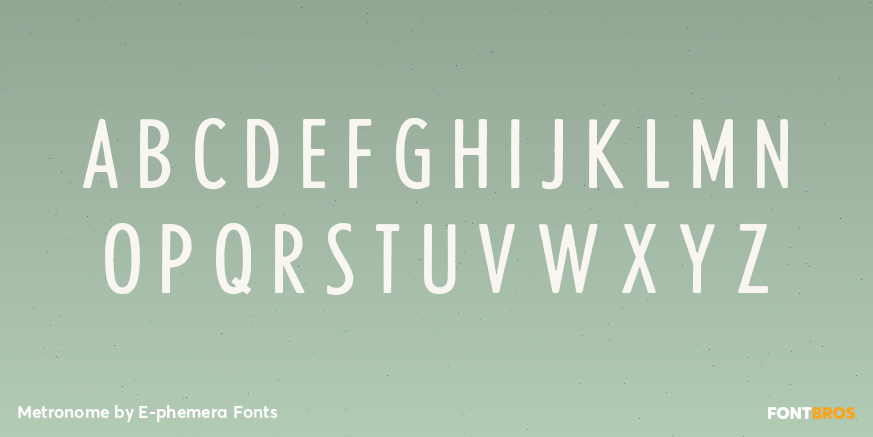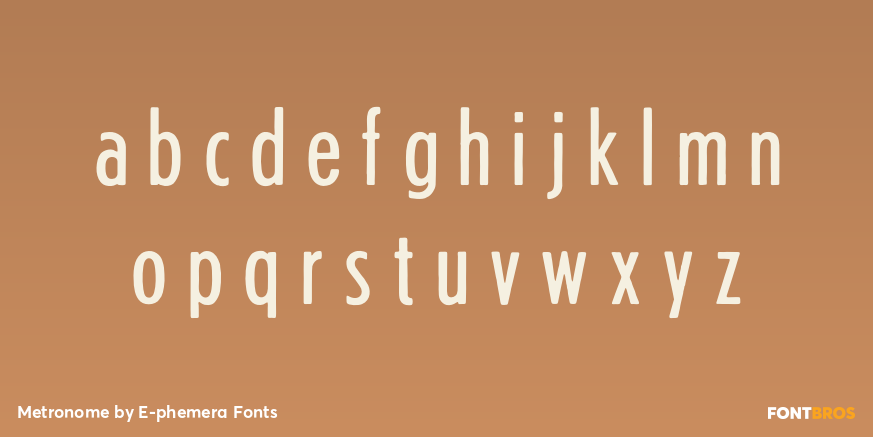
Metronome
Font Family by E-phemera Fonts
Metronome is a modern sans serif family with a bold, condensed, geometric look and a distinctly rounded finish. Its tall, narrow proportions and uniform strokes give it a clean, contemporary voice, while the playful edge keeps it from feeling too rigid.
With three included styles—Metronome Bold, Metronome Condensed Regular, and Metronome Condensed Bold—this family offers a focused range for strong display work. It feels especially well suited to branding, posters, packaging, signage, and other layouts that need legible type with a compact footprint and confident presence.
Designed by E-phemera Fonts, this is a versatile choice for designers who want a condensed sans that balances strength, clarity, and personality without losing its modern simplicity.